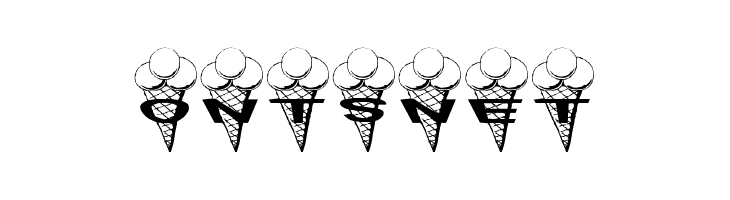
Whimsical display font with letters inside ice cream cones.
( Fonts by Mr Fisk - Mike Larsson - fontorama.net )
A futuristic, geometric font with bold, angular letterforms.
( Fonts by Graham Meade - GemFonts )
A whimsical script font with elegant curves and decorative flourishes.
( Fonts by or from www.graffitifonts.net )
A bold, playful handwritten font with smooth, rounded strokes.
( Fonts by RudynFluffy )
A dynamic, angular font with a sense of speed and movement.